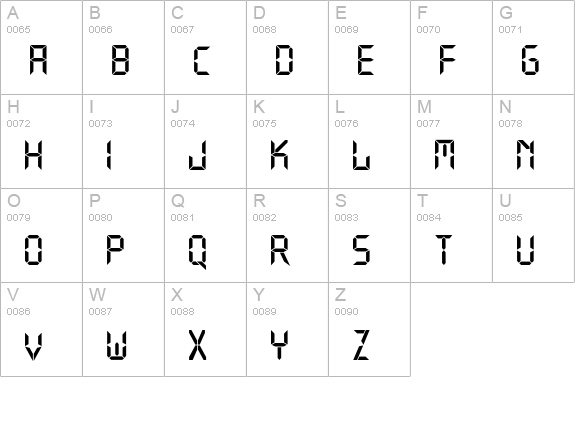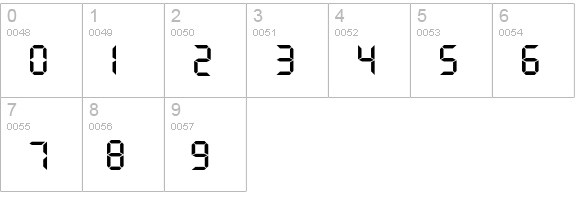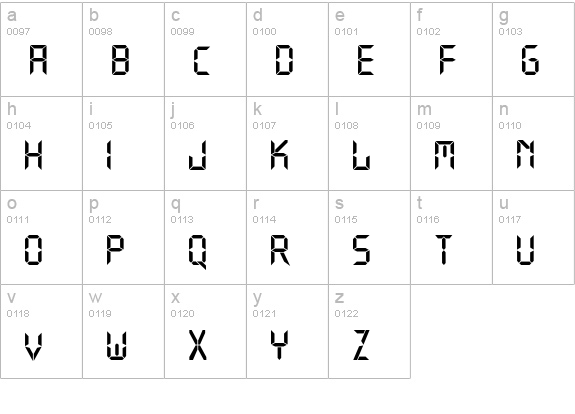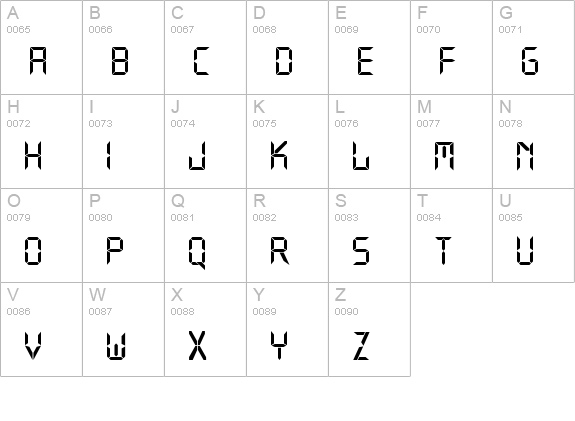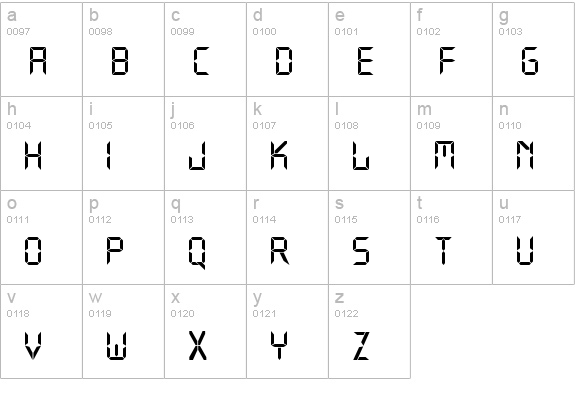
Digital Normal is the standard, neutral variant in the Digital typeface family \xE2\x80\x94 well suited to general body text, paragraphs, and standard typographic work.
Introducing Digital Normal font, a sleek and modern typeface that effortlessly blends contemporary aesthetics with a touch of technological sophistication. This font exudes a sense of digital innovation, making it the perfect choice for projects that require a cutting-edge and futuristic look. Digital Normal font boasts clean lines and precise geometry, ensuring optimal legibility across various screen sizes and resolutions. Its versatile nature allows it to be used in a multitude of design contexts, from website headings and logos to digital presentations and mobile applications. With its confident and bold letterforms, Digital Normal font commands attention and adds a sense of professionalism to any project it graces. What sets Digital Normal font apart is that it is not only visually striking, but also freely available to download at FontsMarket.com. This means that designers and creatives alike can access this exceptional font without any cost, making it a valuable asset for both personal and commercial use. The ease of accessibility further enhances its versatility, allowing for seamless integration into any design workflow. In addition to its elegant design and accessibility, Digital Normal font also supports a wide range of international languages, ensuring that your message can be effectively communicated to a global audience. Its extensive character set includes various punctuation marks, numerals, and special symbols, providing you with ample creative freedom to bring your ideas to life. Whether you're working on a high-tech startup's branding, a sleek user interface, or an eye-catching advertising campaign, Digital Normal font is the ideal choice to elevate your designs to the next level. With its sleek and modern aesthetics, versatile nature, and free availability, this font is a must-have for any designer looking to make a bold statement in the digital realm. Take advantage of the opportunity to download Digital Normal font for free at FontsMarket.com and unlock a world of creative possibilities.